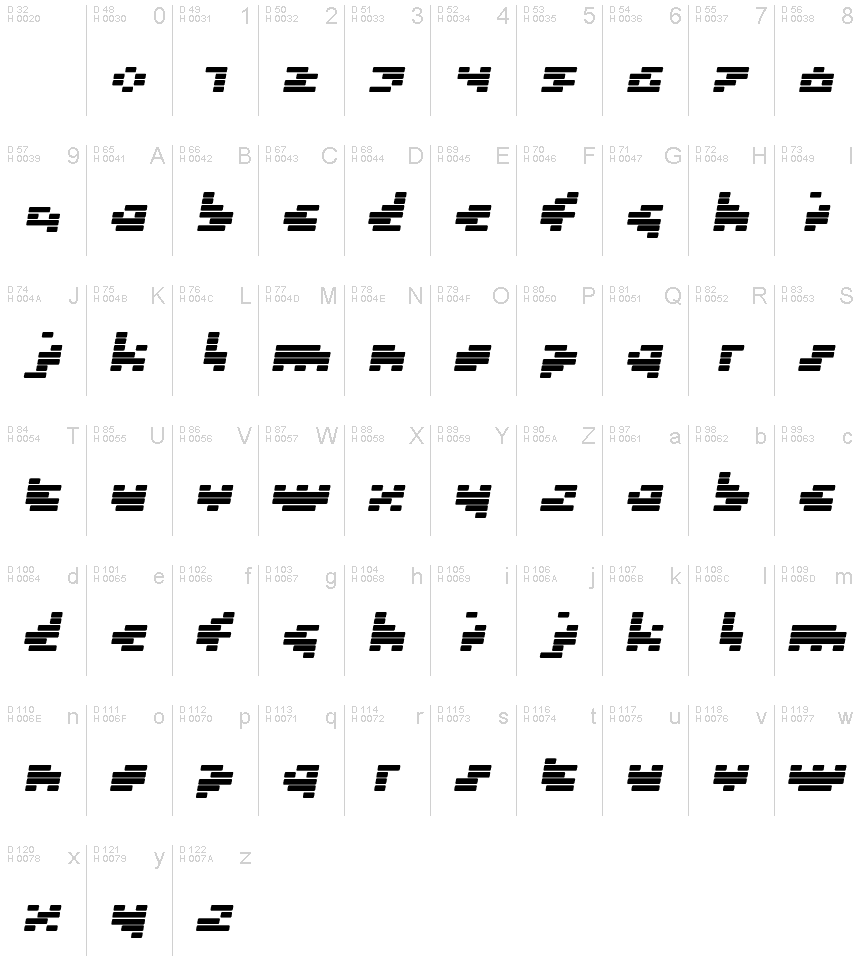
Token
Token, designed by Koen Hachmang, is a bold and captivating display font that embodies the essence of digital artistry. With its extra-expanded width and robust weight, Token stands out for its commanding presence on any canvas. The geometric precision and block-like structure lend it an unmistakably modern aesthetic that is both playful and professional.
This distinct typeface captures the contemporary digital zeitgeist, making it an ideal choice for projects aiming to convey innovation, technology, or futuristic themes. Its unique character shapes are crafted to grab attention while maintaining readability, ensuring your message is not just seen but also remembered.
Whether used in large-scale installations or on-screen displays, Token's style enhances the visual hierarchy of any design. It's particularly well-suited for eye-catching headlines, dynamic logos, engaging social media graphics, or any creative endeavor where a strong typographic statement is required.
Token transcends conventional typography to offer designers a versatile tool that infuses their work with a sense of energy and forward-thinking design.
This distinct typeface captures the contemporary digital zeitgeist, making it an ideal choice for projects aiming to convey innovation, technology, or futuristic themes. Its unique character shapes are crafted to grab attention while maintaining readability, ensuring your message is not just seen but also remembered.
Whether used in large-scale installations or on-screen displays, Token's style enhances the visual hierarchy of any design. It's particularly well-suited for eye-catching headlines, dynamic logos, engaging social media graphics, or any creative endeavor where a strong typographic statement is required.
Token transcends conventional typography to offer designers a versatile tool that infuses their work with a sense of energy and forward-thinking design.